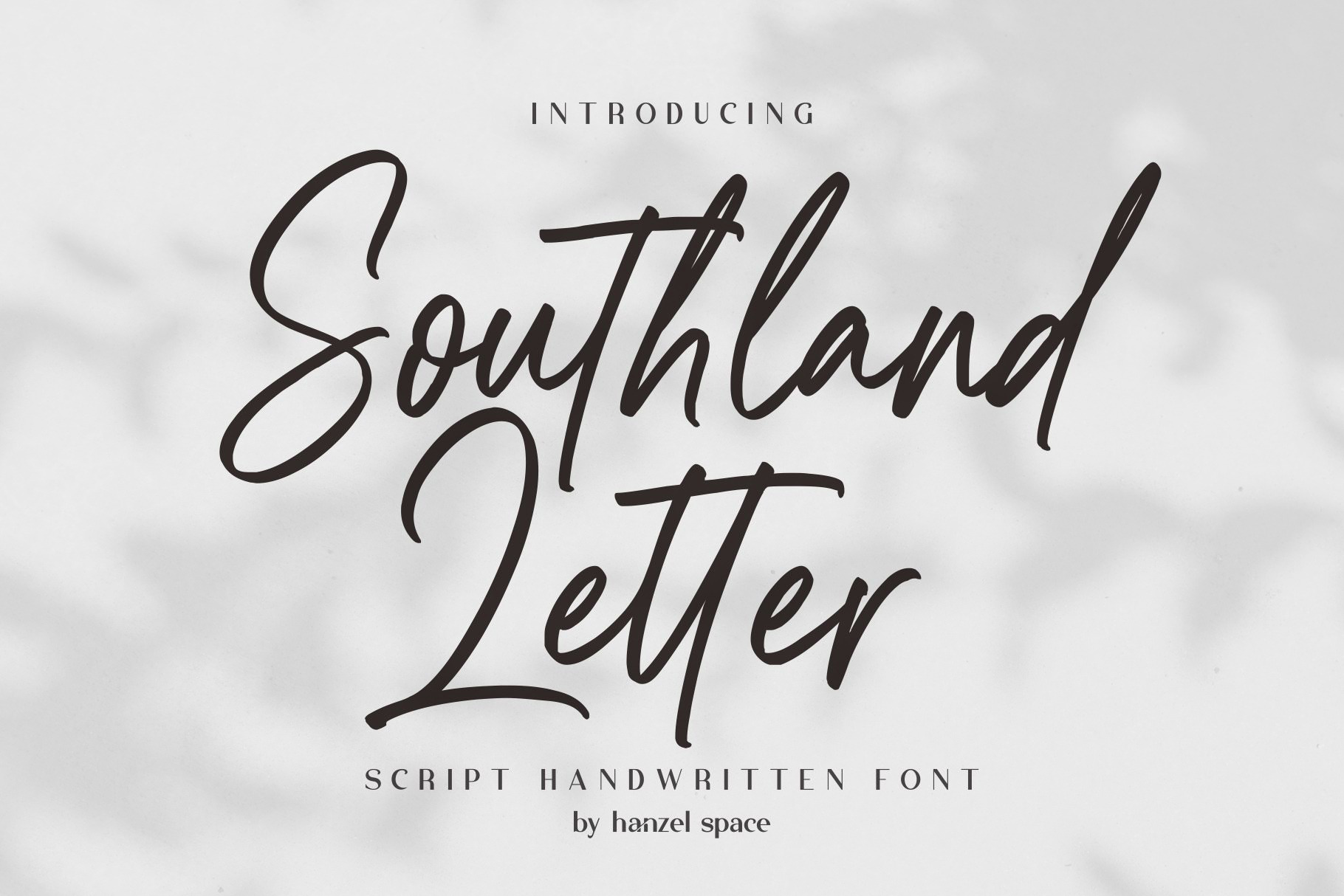
Southland Letter | Handwritten Font
Southland Script Handwritten Font with contemporary, sophisticated accents. It is perfect for branding, wedding invites, tagline, cards, maybe for label and logo.
Southland includes full set of gorgeous uppercase and lowercase letters, numerals, a large range of punctuation and ligatures. It expresses beauty of handwriting. What you get, darling?